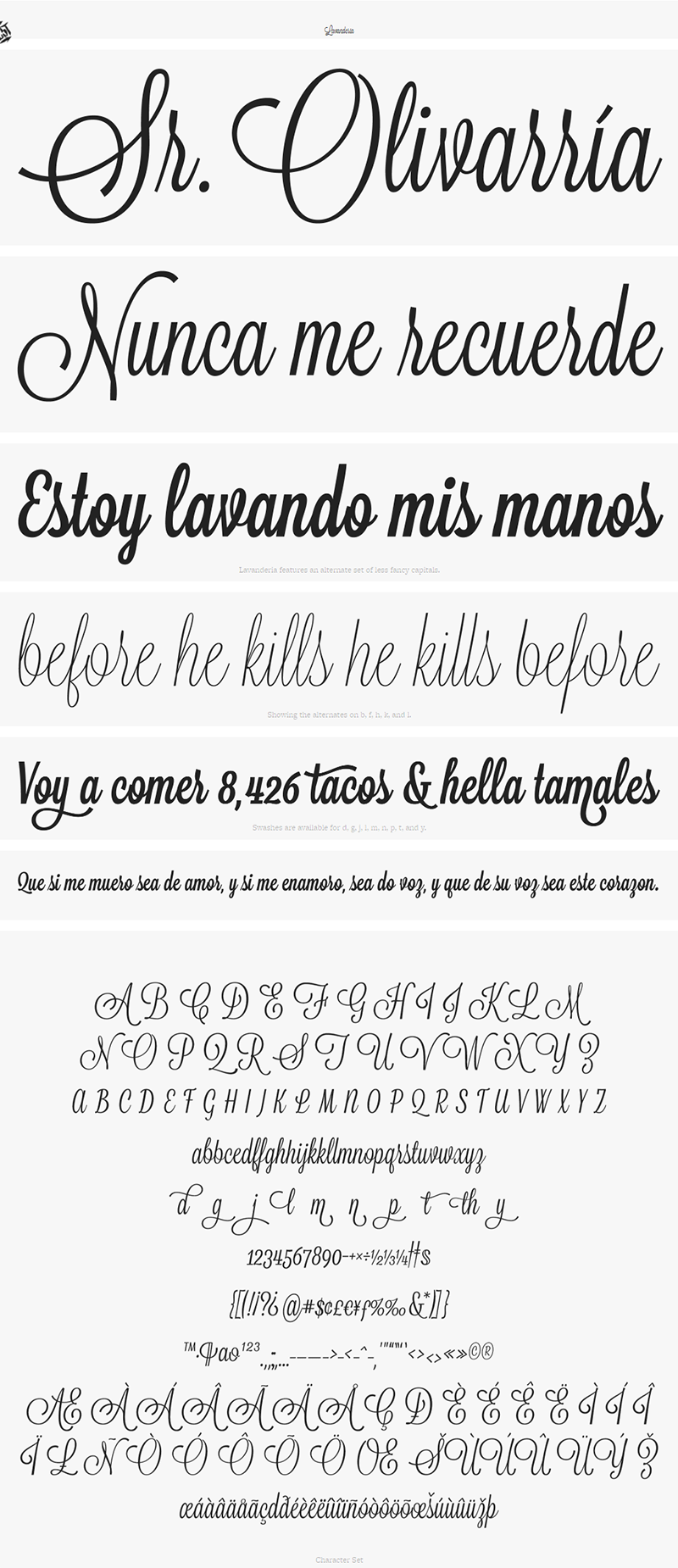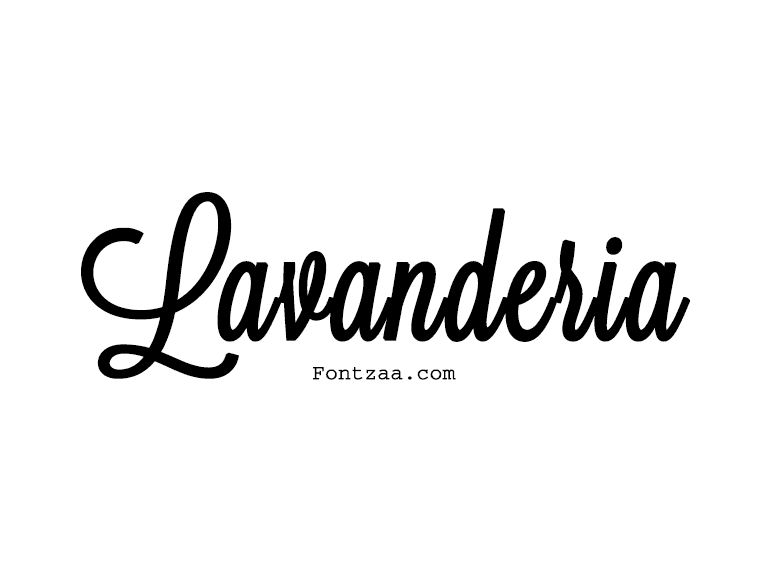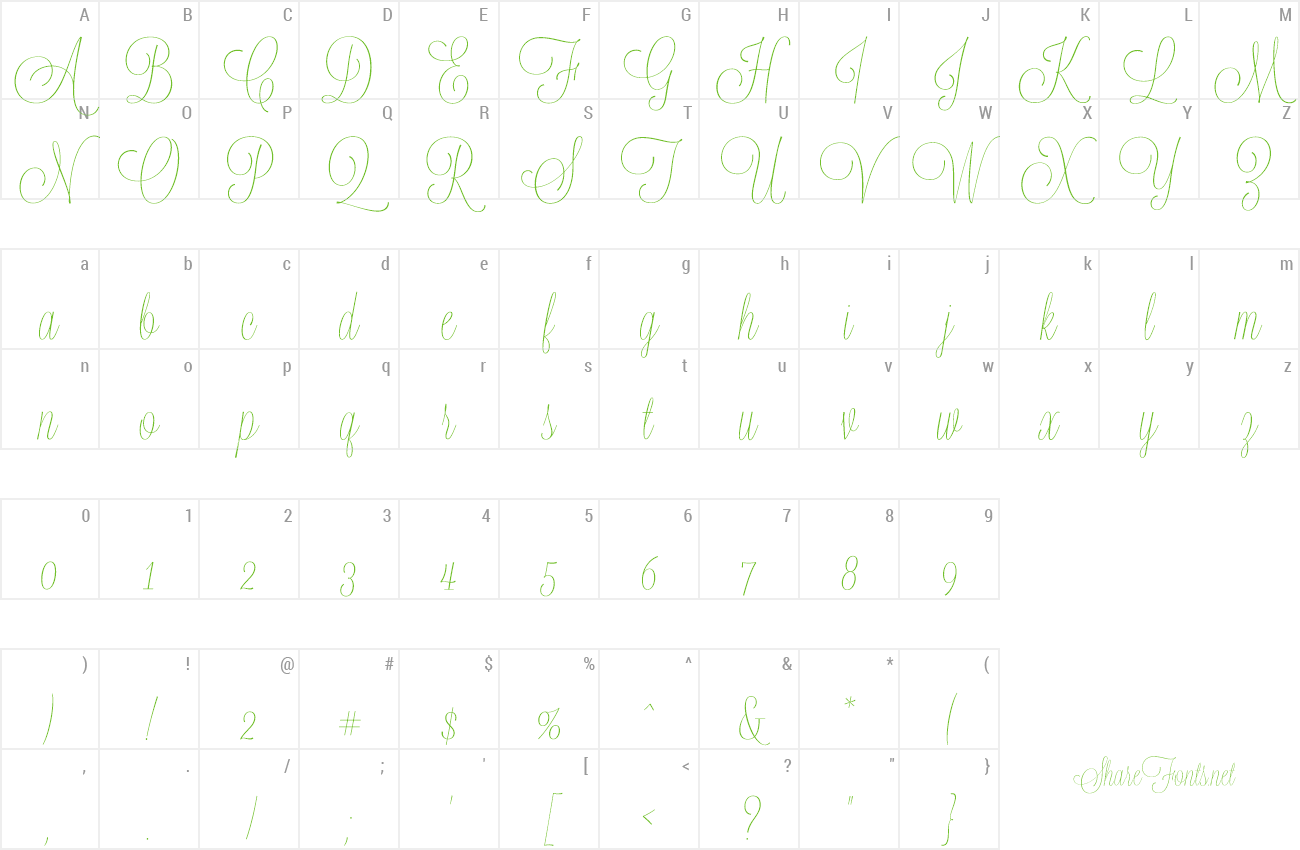
Lavanderia Font Generator - Web lavanderia font is carefully created with a digital pen brush that has a smooth character so that it produces a. Web lavanderia is a free calligraphy, script font designed by james t.edmondson, inspired by laundromat windows of san francisco. Copyright (c) 2011 by james t.
Web lavanderia font is carefully created with a digital pen brush that has a smooth character so that it produces a. Web lavanderia is a free calligraphy, script font designed by james t.edmondson, inspired by laundromat windows of san francisco. Copyright (c) 2011 by james t.
Web lavanderia font is carefully created with a digital pen brush that has a smooth character so that it produces a. Copyright (c) 2011 by james t. Web lavanderia is a free calligraphy, script font designed by james t.edmondson, inspired by laundromat windows of san francisco.
Web lavanderia font is carefully created with a digital pen brush that has a smooth character so that it produces a. Web lavanderia is a free calligraphy, script font designed by james t.edmondson, inspired by laundromat windows of san francisco. Copyright (c) 2011 by james t.
Copyright (c) 2011 by james t. Web lavanderia font is carefully created with a digital pen brush that has a smooth character so that it produces a. Web lavanderia is a free calligraphy, script font designed by james t.edmondson, inspired by laundromat windows of san francisco.
Web lavanderia is a free calligraphy, script font designed by james t.edmondson, inspired by laundromat windows of san francisco. Web lavanderia font is carefully created with a digital pen brush that has a smooth character so that it produces a. Copyright (c) 2011 by james t.
Web lavanderia font is carefully created with a digital pen brush that has a smooth character so that it produces a. Copyright (c) 2011 by james t. Web lavanderia is a free calligraphy, script font designed by james t.edmondson, inspired by laundromat windows of san francisco.
Copyright (c) 2011 by james t. Web lavanderia font is carefully created with a digital pen brush that has a smooth character so that it produces a. Web lavanderia is a free calligraphy, script font designed by james t.edmondson, inspired by laundromat windows of san francisco.
Copyright (c) 2011 by james t. Web lavanderia is a free calligraphy, script font designed by james t.edmondson, inspired by laundromat windows of san francisco. Web lavanderia font is carefully created with a digital pen brush that has a smooth character so that it produces a.
Web lavanderia is a free calligraphy, script font designed by james t.edmondson, inspired by laundromat windows of san francisco. Copyright (c) 2011 by james t. Web lavanderia font is carefully created with a digital pen brush that has a smooth character so that it produces a.
Lavanderia Font download free
Web lavanderia font is carefully created with a digital pen brush that has a smooth character so that it produces a. Web lavanderia is a free calligraphy, script font designed by james t.edmondson, inspired by laundromat windows of san francisco. Copyright (c) 2011 by james t.
Lavanderia Font Free Download
Web lavanderia font is carefully created with a digital pen brush that has a smooth character so that it produces a. Web lavanderia is a free calligraphy, script font designed by james t.edmondson, inspired by laundromat windows of san francisco. Copyright (c) 2011 by james t.
Web Lavanderia Font Is Carefully Created With A Digital Pen Brush That Has A Smooth Character So That It Produces A.
Web lavanderia is a free calligraphy, script font designed by james t.edmondson, inspired by laundromat windows of san francisco. Copyright (c) 2011 by james t.